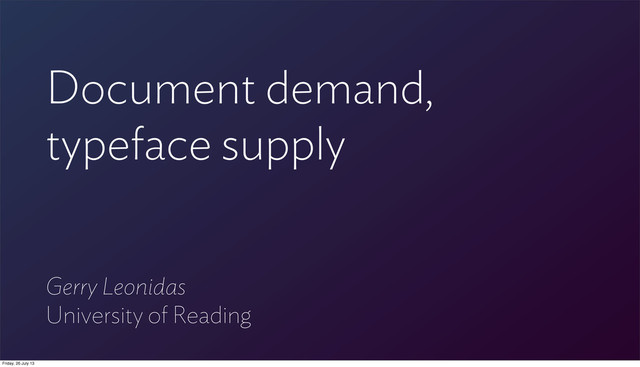
Document demand, typeface supply
Gerry Leonidas
Talk at the Granshan 2013 conference, taking place at the TCDC centre, in Bangkok
Document demand, typeface supply Gerry Leonidas University of Reading Friday,
seismograph* Friday, 26 July 13
Typefaces are a seismograph* Friday, 26 July 13
Typefaces tell stories Friday, 26 July 13
People, places, and conditions of document-making and document-reading Friday, 26
Linguistic, cultural and typographic integrity Friday, 26 July 13
A methodology Friday, 26 July 13
Four axes of investigation Friday, 26 July 13
1 Typeface design as an industrial and professional enterprise Friday,
Meanwhile… Friday, 26 July 13
New approaches Friday, 26 July 13
So, what now? Friday, 26 July 13